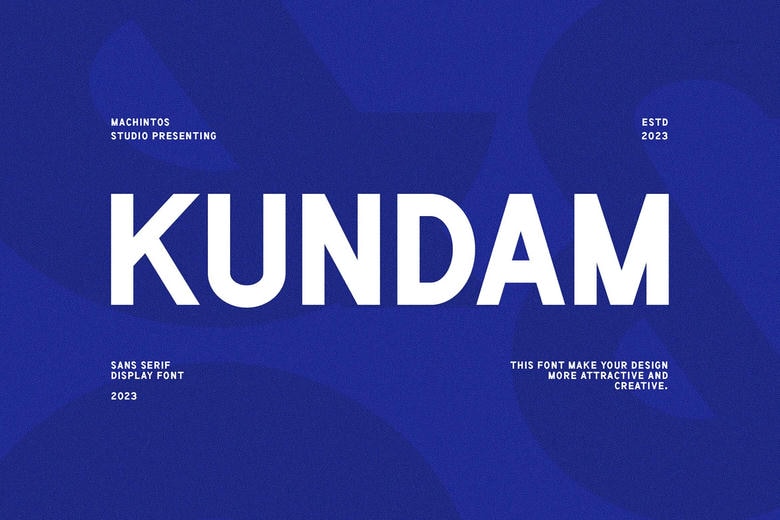
Kundam Font
Kundam is unusual but beautiful sans serif font. It appears attractive on an array of designs that need an individualized style which include wedding invitation, thank you cards, wedding, greeting cards, logos and so forth.
Kundam Sans Serif Font